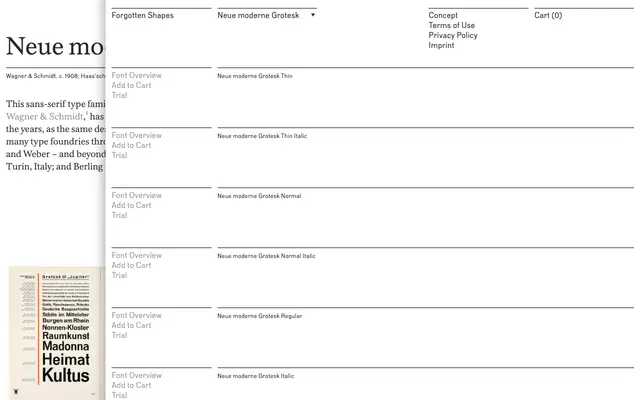
Neue moderne Grotesk
Forgotten Shapes · Stephan Müller · 2011
A digital revival of the 1908 Wagner & Schmidt grotesque, the same matrix-distributed design that circulated across Europe as Aurora-Grotesk, Akzidenz-Grotesk and Cairoli, among others.
Stephan Müller's revival, developed between 2011 and 2019, traces the grotesque back to its source: the Leipzig punchcutting firm Wagner & Schmidt, which sold matrices to foundries throughout Europe rather than casting type itself. The same design appeared under at least nine different names across Germany, Austria, Italy and Sweden before the Haas foundry reworked it into what became Akzidenz-Grotesk. Five weights from Thin to Black, each with a matching italic, cover the family's pre-digital range in a form suited to contemporary use.
A revival of a nineteenth-century German grotesque originally cut at Wagner & Schmidt in 1908 and distributed across Europe under many names including Aurora-Grotesk and Akzidenz-Grotesk. Its regularised, upright forms with minimal contrast are characteristic of the pre-Helvetica European grotesque tradition.